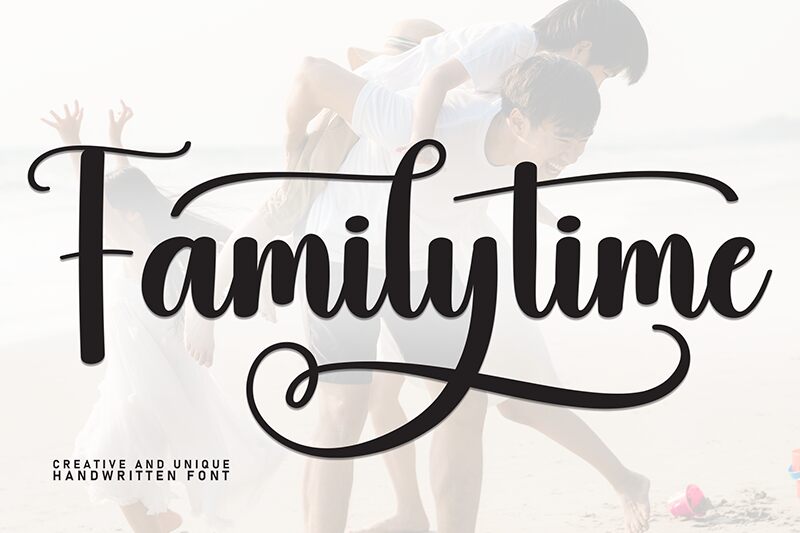
Familytime
Familytime font by Scratchones is a handwritten typeface that brings a sense of elegance and expressiveness to the table. Decorative and flowing, this modern script font has a contemporary appearance that gives it versatile creative potential. Its gentle hand-written design can easily captivate audiences, be it printed or displayed digitally.
Free handwritten font Familytime lends itself perfectly to logo designs, brand identity designs, social media graphics, poster designs, stylish magazines’ cover pages, novelty packaging design as well as greeting card designs. It makes for stunning typography in invitations and announcements be it digital or on paper.